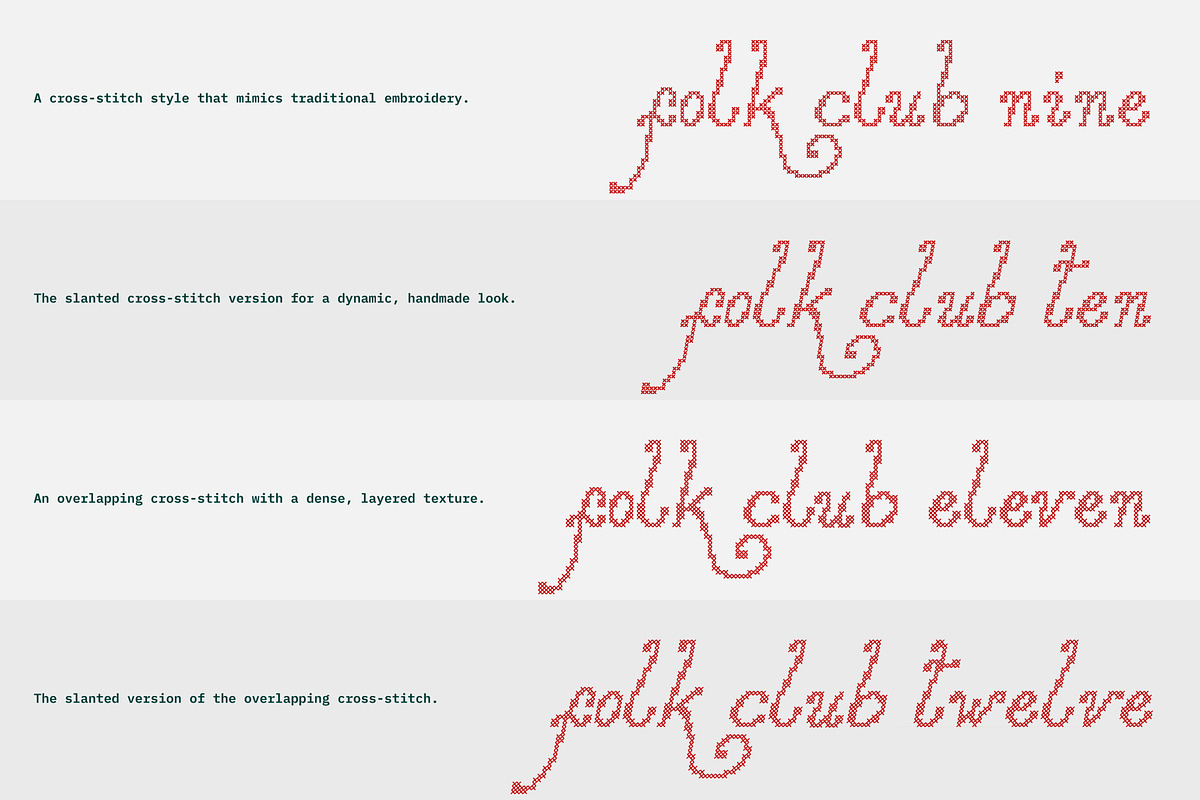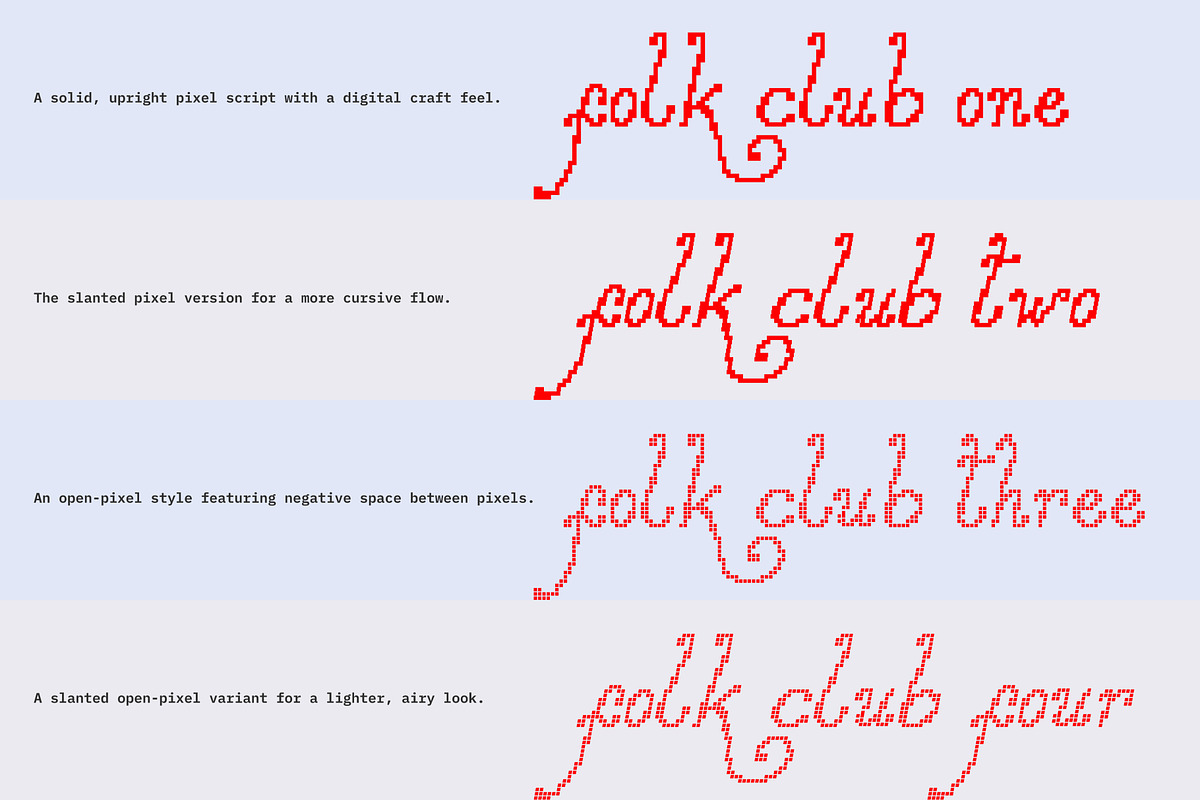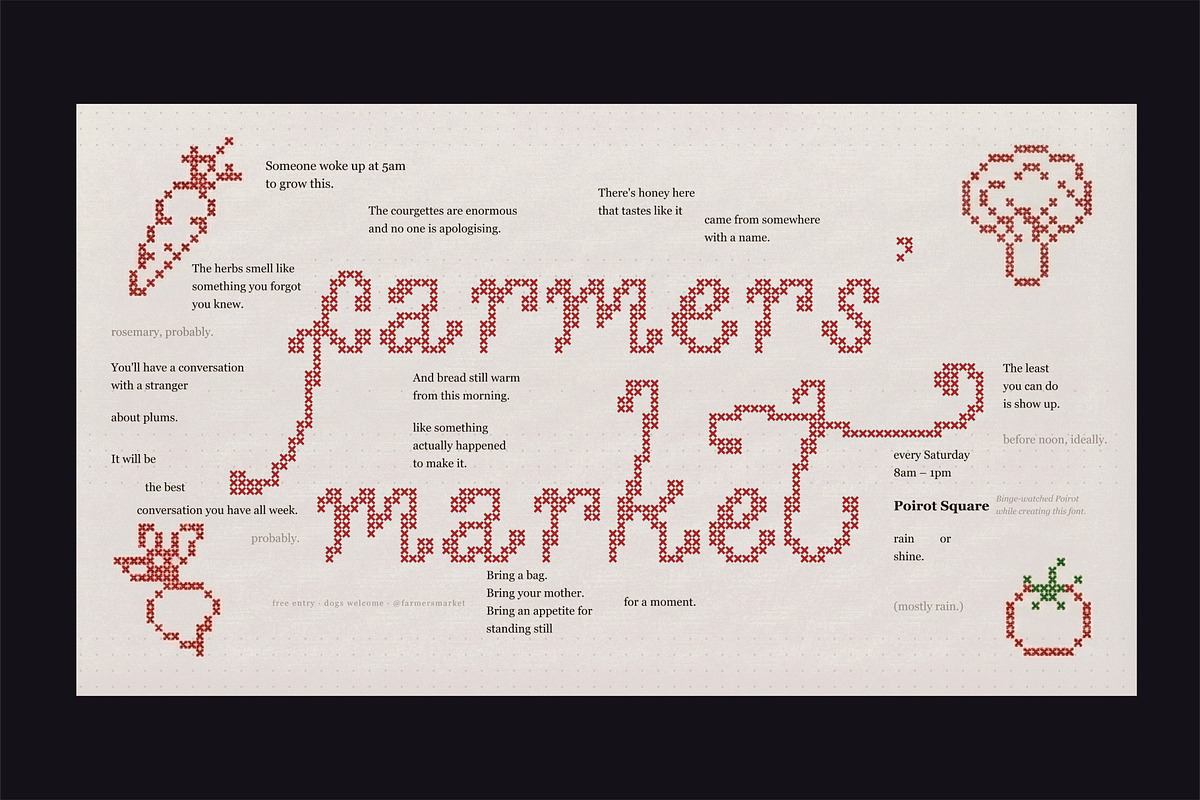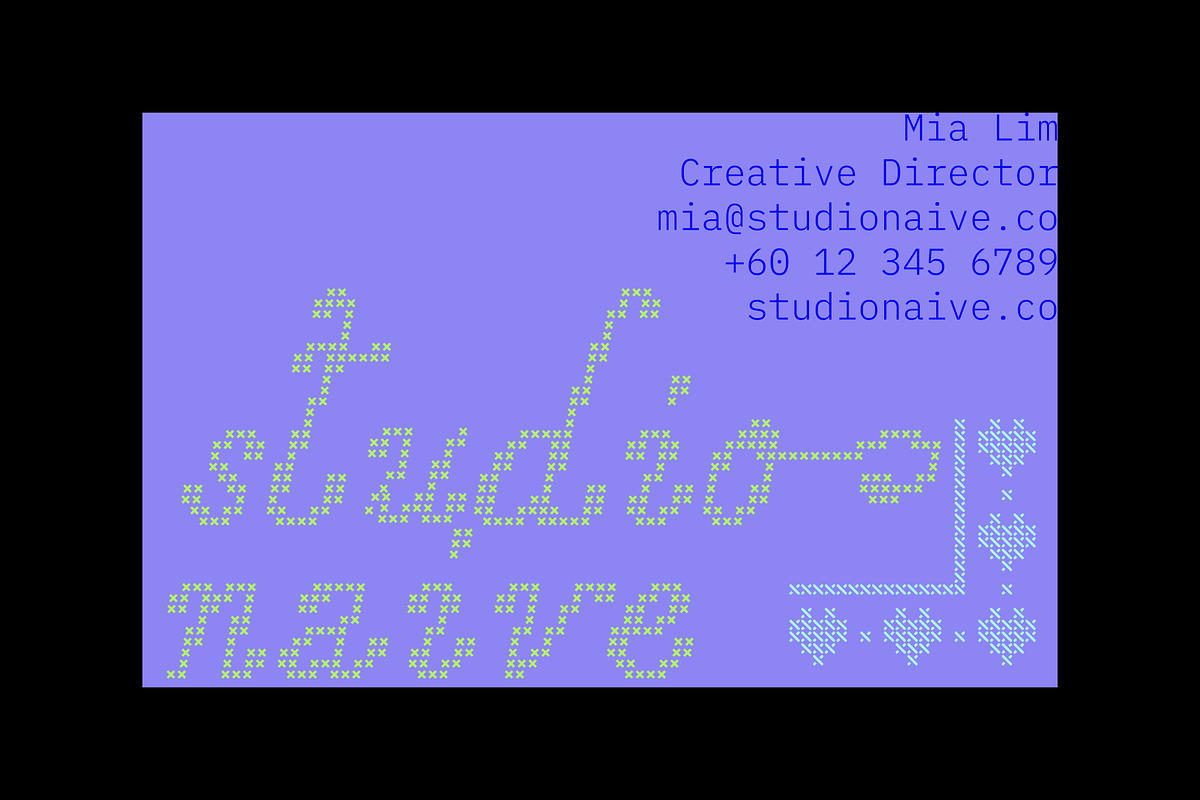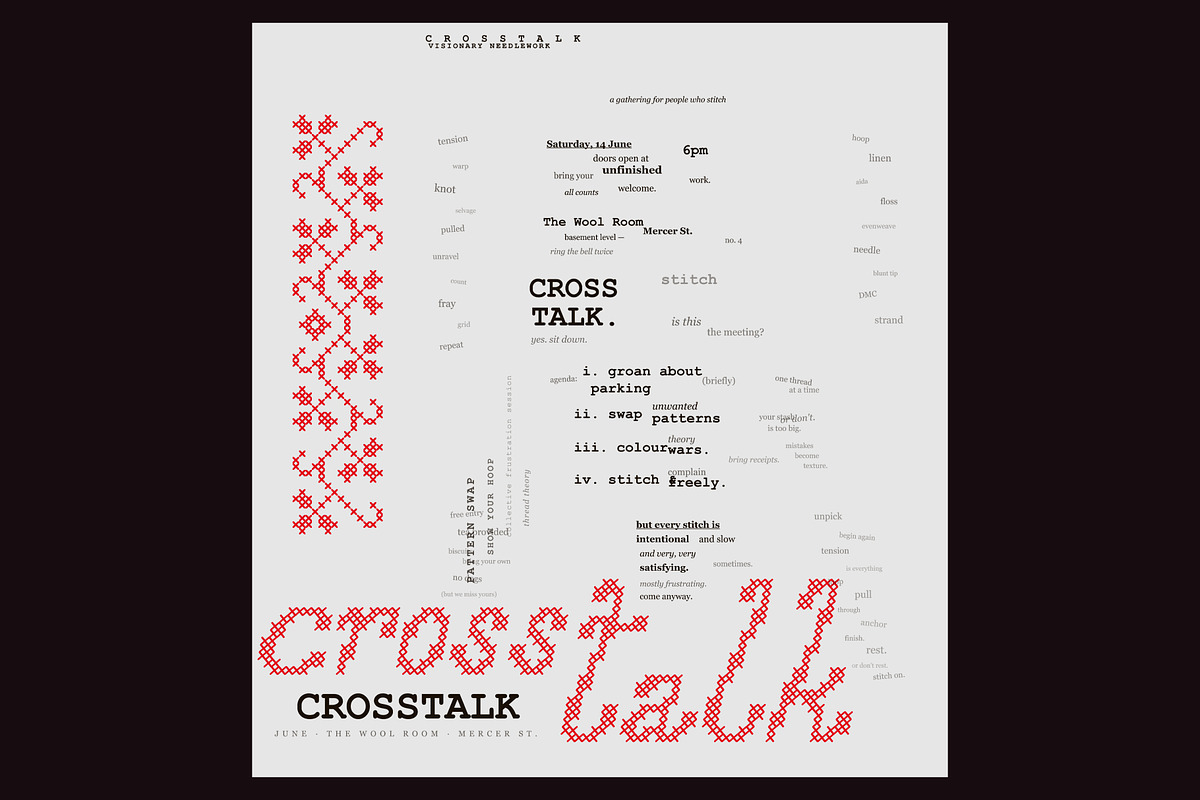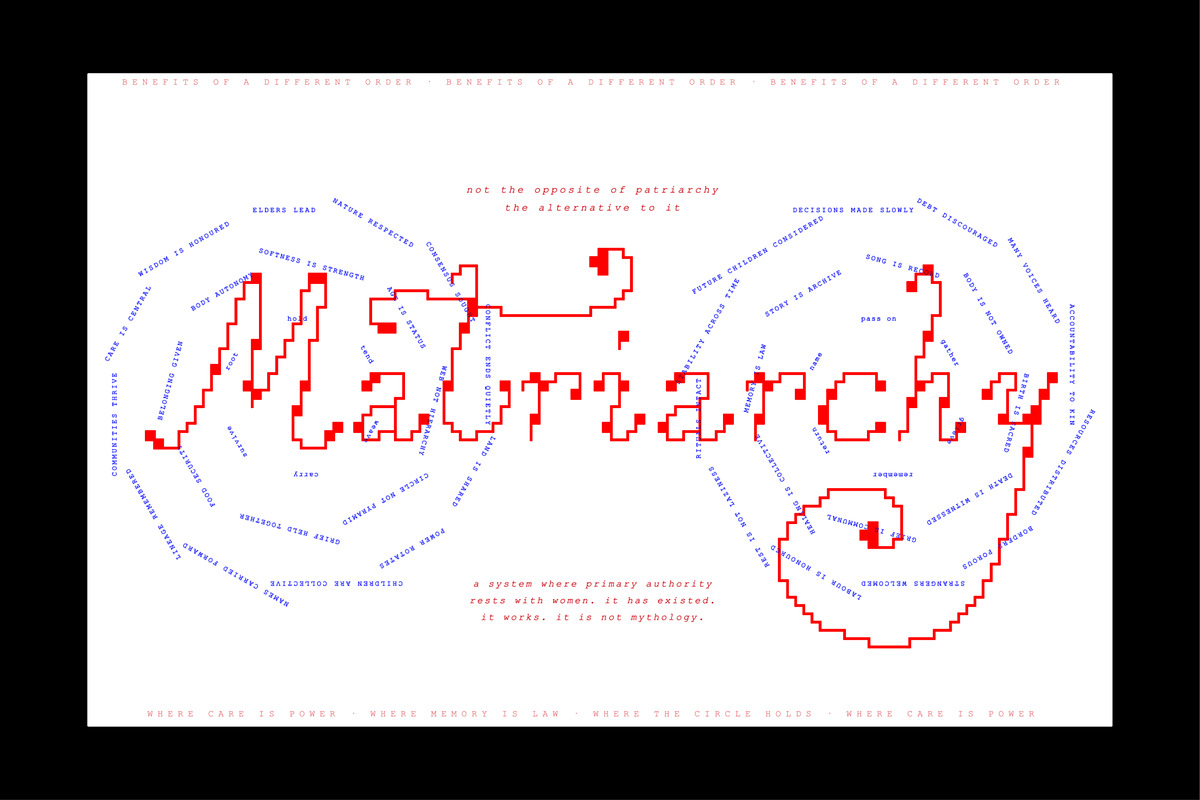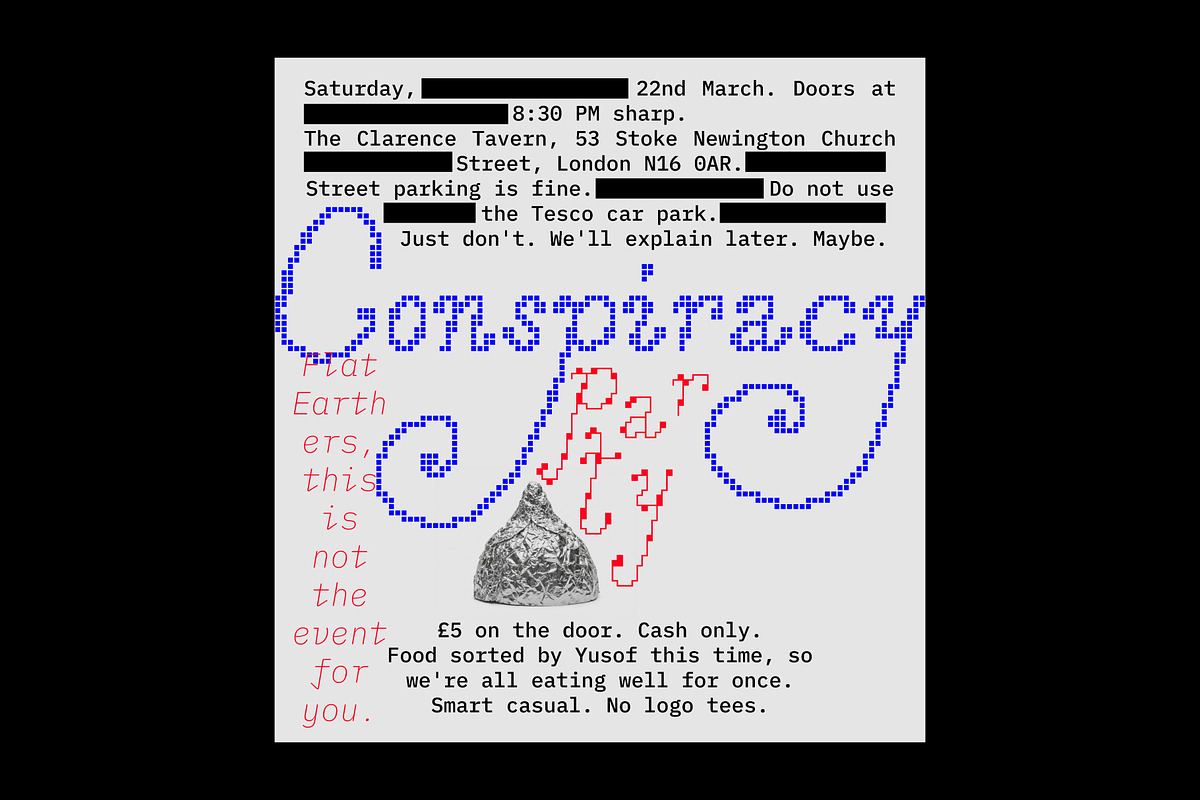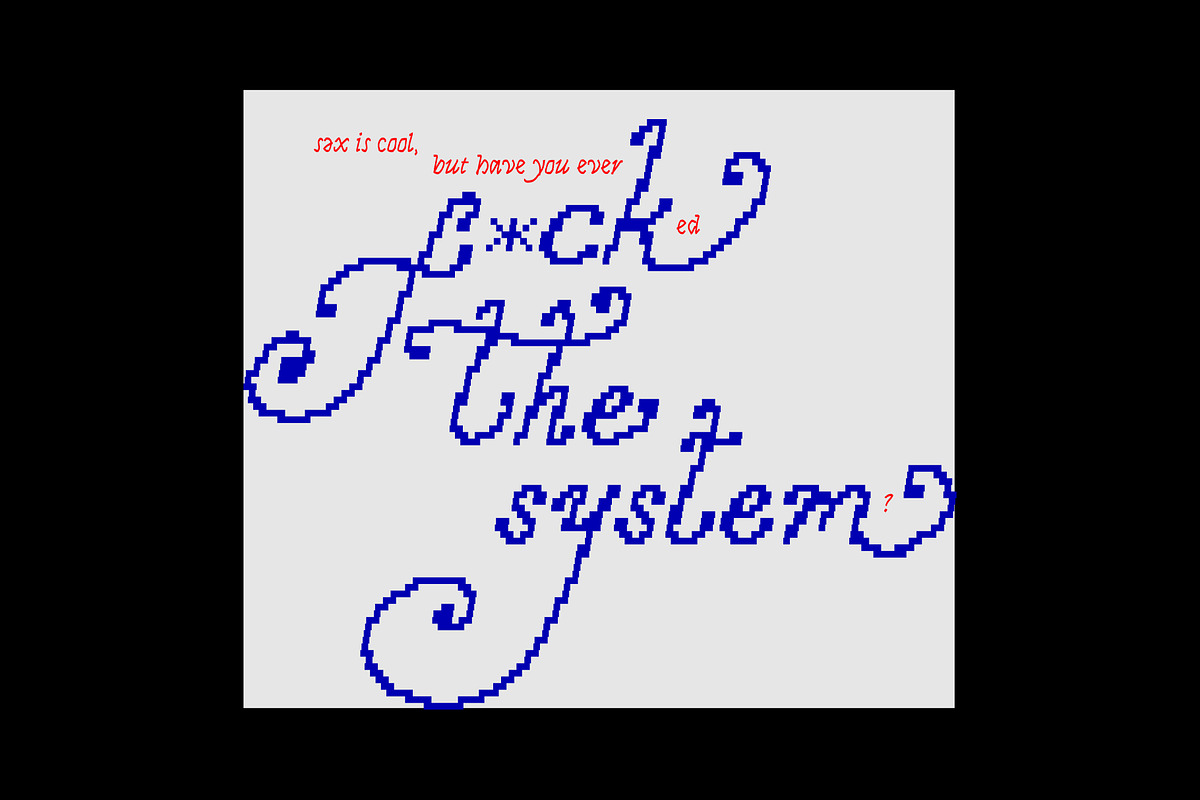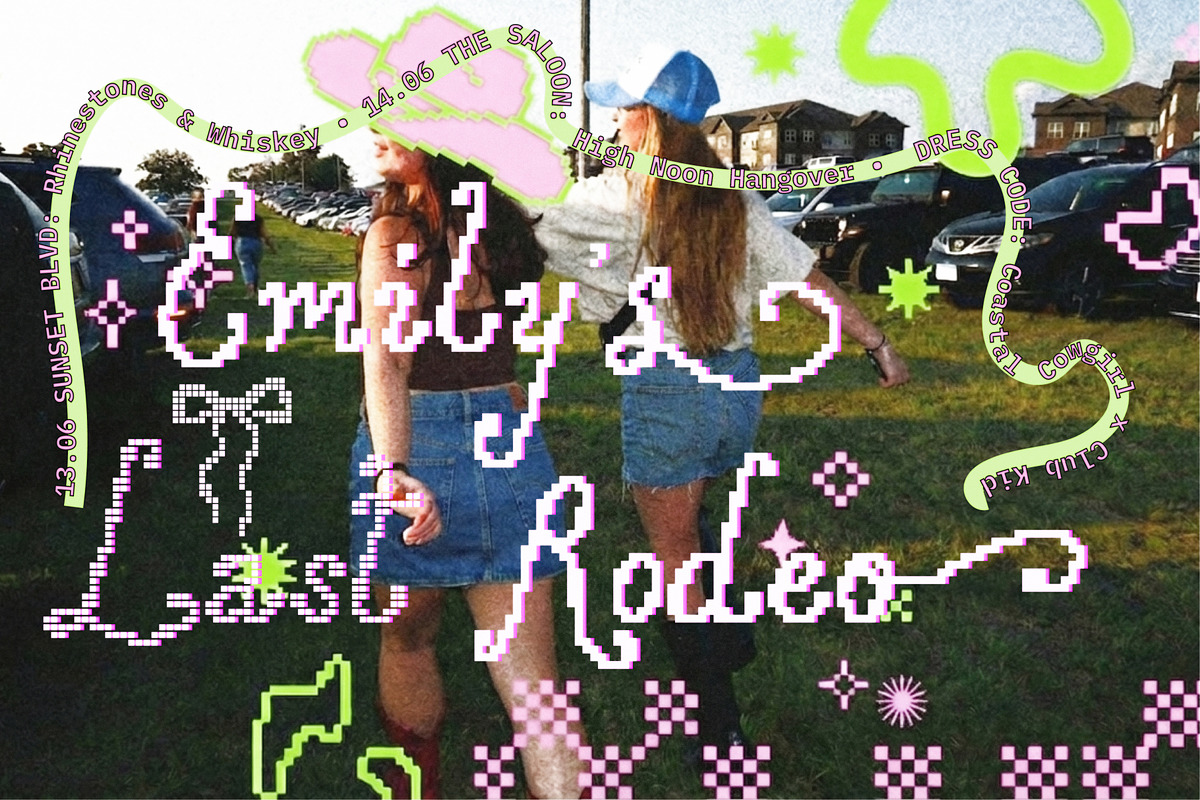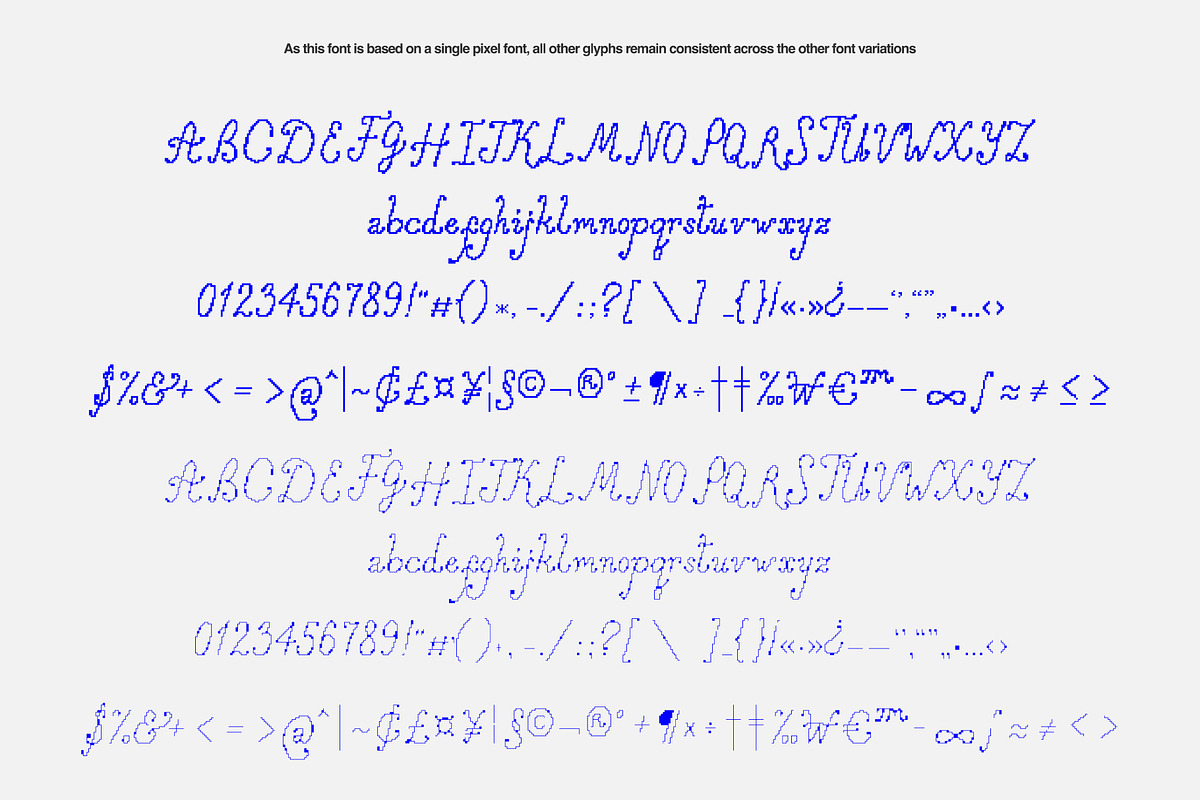
Folk Club // 17 Font Set (Pixel)
This collection was built pixel-by-pixel in the Glyphs app. This process allowed me to keep the organic feel of handwriting within a strict digital grid.
Folk Club includes 17 styles as a creative experiment, ranging from clean circle pixels to tactile cross-stitch and "digital virus" textures.
The lowercase letters in Folk Club are designed to maintain a consistent script flow. Because this isn't a standard "italic" font, please type your text in the previewer before purchasing to see how these unique characters look together.
Styles Included:
Folk Club 1 & 2: Original Pixel and Slanted Pixel scripts.
Folk Club 3 & 4: Open-Pixel and slanted versions with airy negative space.
Folk Club 5 & 6: Upright and slanted Circle Pixel (Dotted) styles.
Folk Club 7 & 8: Lightly Dotted variations with more space between dots.
Folk Club 9 & 10: Authentic Cross-Stitch and slanted embroidery effects.
Folk Club 11 & 12: Overlapping Cross-Stitch for a dense, layered texture.
Folk Club 13: Digital Virus—a distorted, experimental glitch style.
Folk Club 14 & 15: Vintage Irregular and slanted styles with a rough, raw grain.
Folk Club16: Over-Outlined script with a bold, emphasized border.
Folk Club 17: Delicate Cross-Stitch with a finer, more intricate finish.